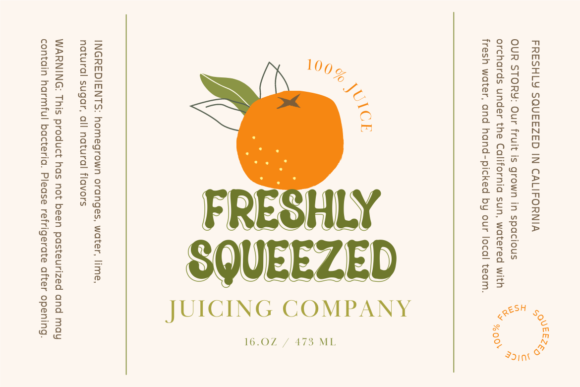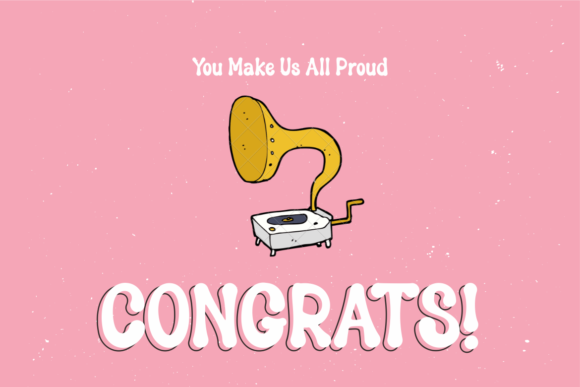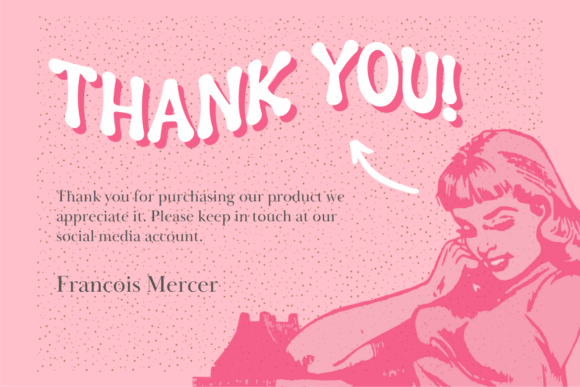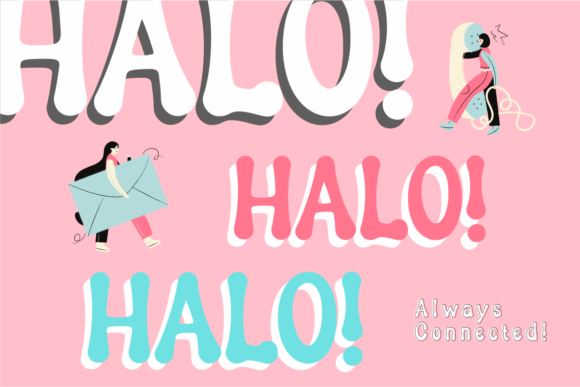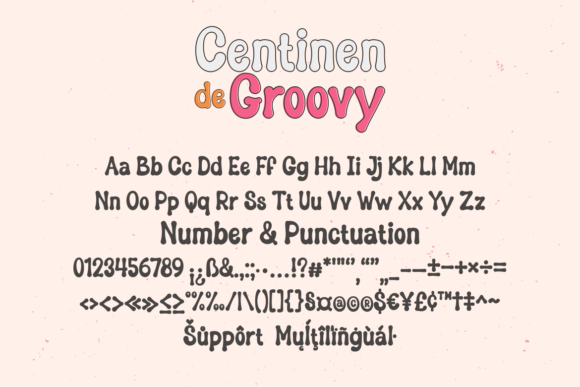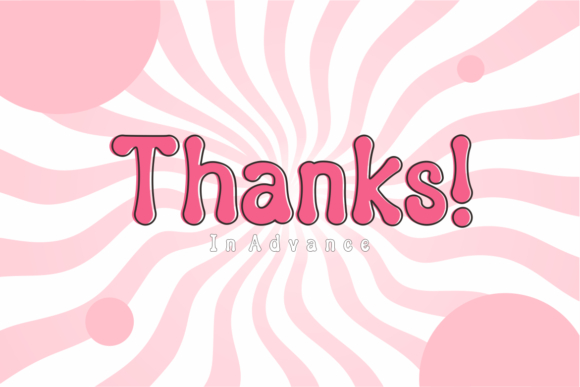
Get Ready to Groove with the Perfect Font for Your Next Project
You know that moment when you’re brainstorming ideas for a new design project, and suddenly, a burst of creativity hits you? You envision a vibrant, eye-catching headline that makes your audience smile. That’s exactly what you need – a font that captures the essence of playfulness and retro charm.
Enter the Centinen De Groovy Font, a versatile and stylish display font designed to elevate your projects. Whether you’re creating greeting cards, headlines, or anything in between, this font is the perfect addition to your design toolkit. Its unique blend of fun and sophistication makes it an invaluable asset for designers looking to add a touch of whimsy to their work.
With the Centinen De Groovy Font, you’ll be able to create designs that truly stand out. Its retro flair and playful personality will make your projects shine, and its ease of use will have you hooked from the very start.
Centinen De Groovy Font Key Features
- Font Family: Centinen De Groovy
- Unique Characteristics: Groovy, psychedelic, and retro-inspired design; perfect for creating eye-catching and playful headlines
Designer Review: Centinen De Groovy Font
Overall, I’d say the Centinen De Groovy Font has a lot of potential, but it also comes with some limitations. Let’s break it down.
- ✨ The font’s unique design is definitely eye-catching, and it could add a fun touch to various projects.
- ✨ The bold and italic styles are well-implemented, and they can help create visual hierarchy and emphasis.
- ✨ The font supports a wide range of languages, making it a good choice for international projects.
- ⚠️ The font’s readability can be a concern, especially at smaller sizes. The letters can appear cluttered and difficult to decipher.
- ⚠️ The font’s weight and style variations can be inconsistent, which might affect the overall visual flow of a design.
- ⚠️ Some characters, such as the lowercase “a” and “e”, can be quite similar, making them prone to errors in text entry and typesetting.
Overall, I’d recommend the Centinen De Groovy Font for projects where a bold, playful vibe is required. However, it’s essential to use it judiciously and in conjunction with other fonts to avoid readability issues and maintain a clean design.
The Centinen De Groovy Font is perfect for creating fun and playful designs, such as:
- Wedding invitations and party decorations
- Social media graphics and advertisements
- Children’s book illustrations and educational materials
Remember to experiment with different font sizes, colors, and styles to get the most out of this unique font.